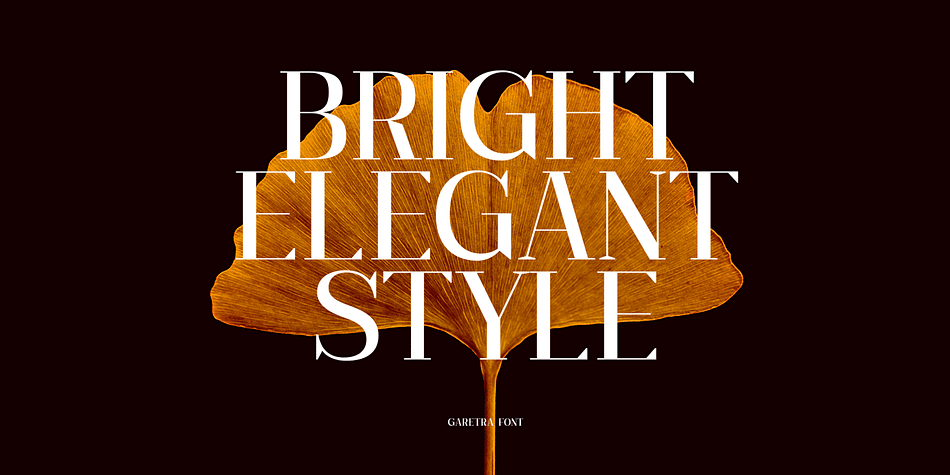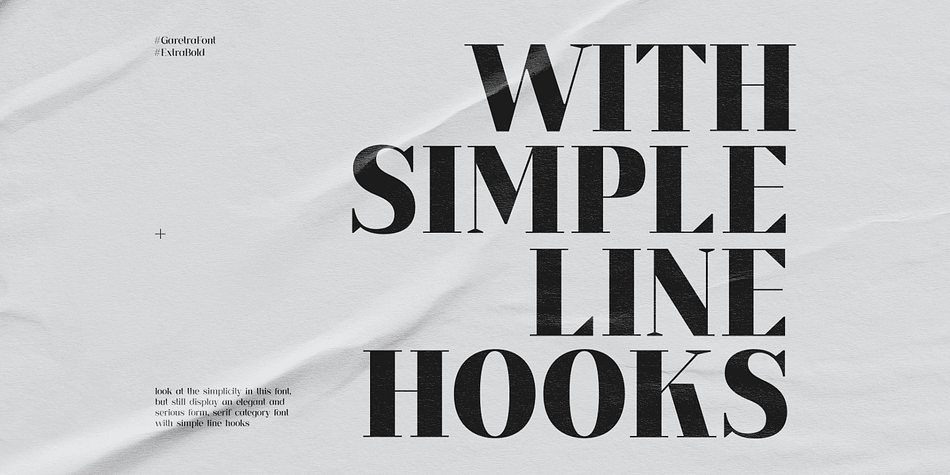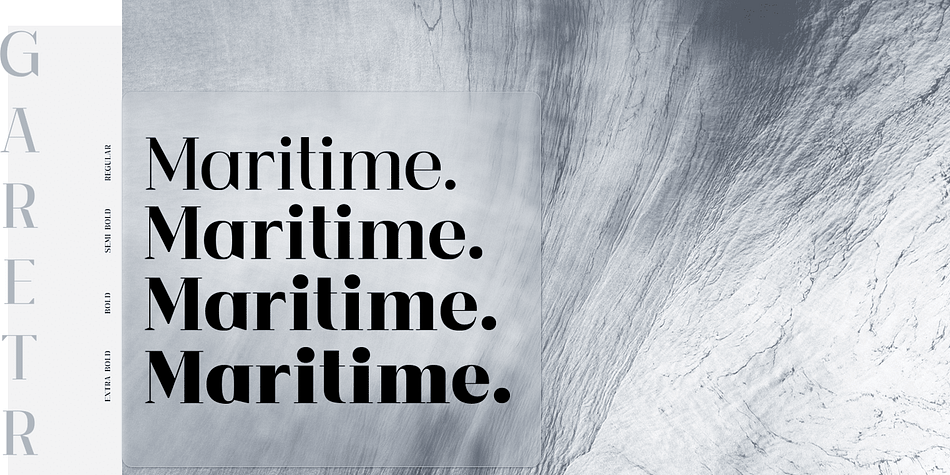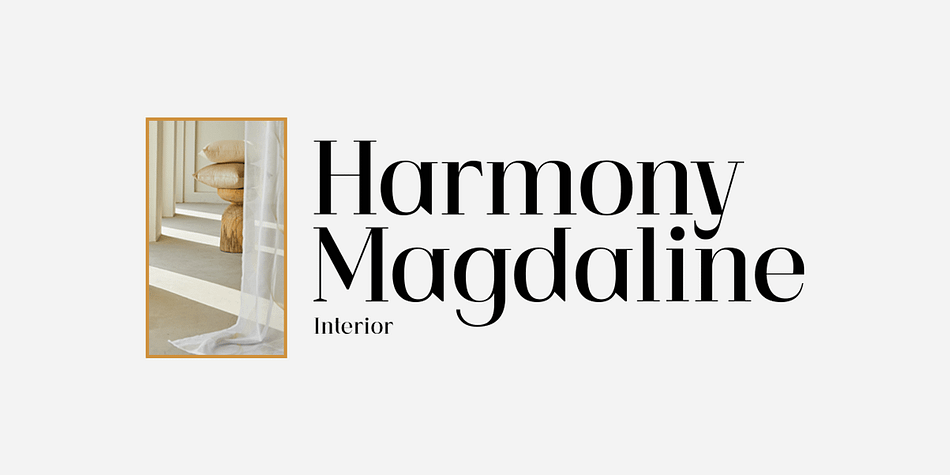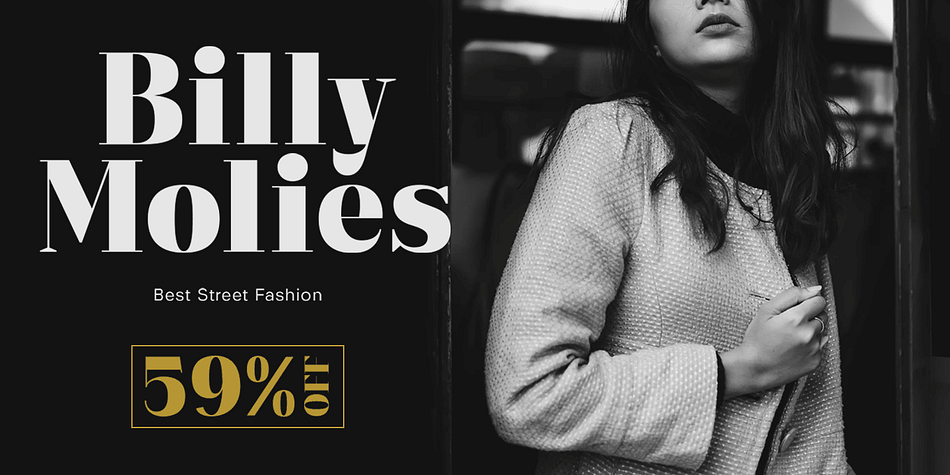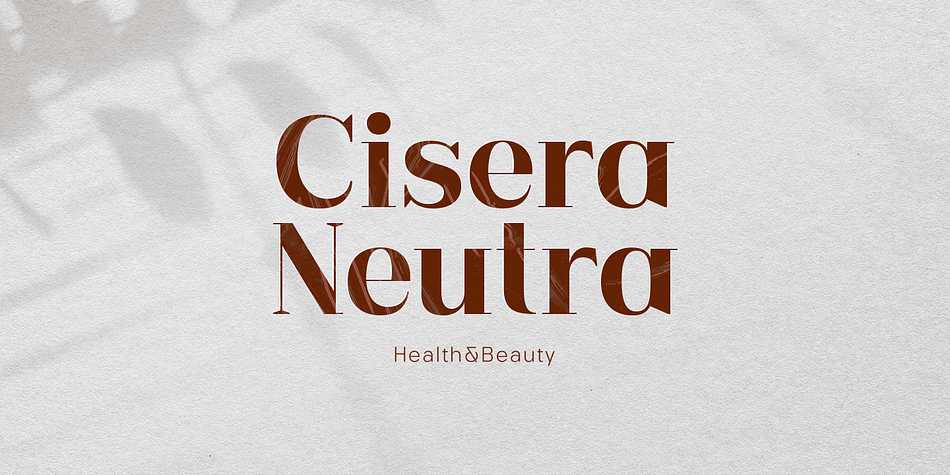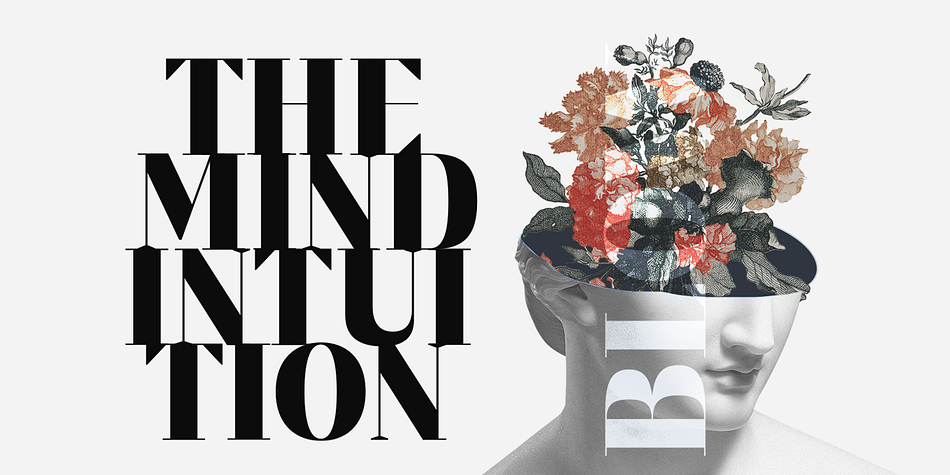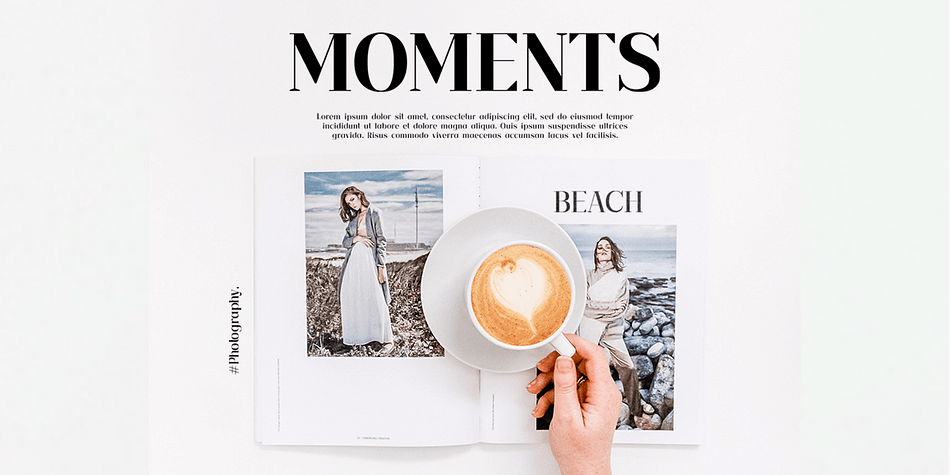
Garetra
Designed by Hendry Juanda, Garetra is a display serif and serif font family. This typeface has four styles and was published by Letterhend Studio.
Garetra Serif s a sophisticated serif with many weight you can choose. It has 4 weight styles which you can play around to match your project, whether for a standout headline, or for a tagline, you name it. Perfect to be applied to the other various formal forms such as invitations, labels, logos, magazines, books, greeting / wedding cards, packaging, fashion, make up, stationery, novels, labels or any type of advertising purpose.
- alternates & ligatures